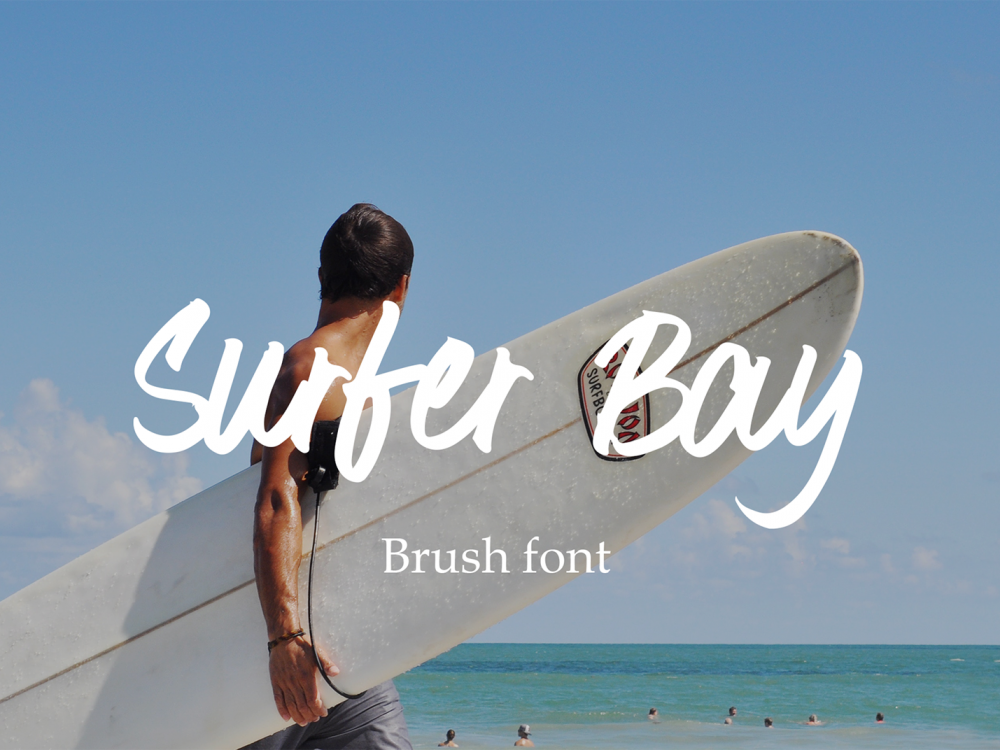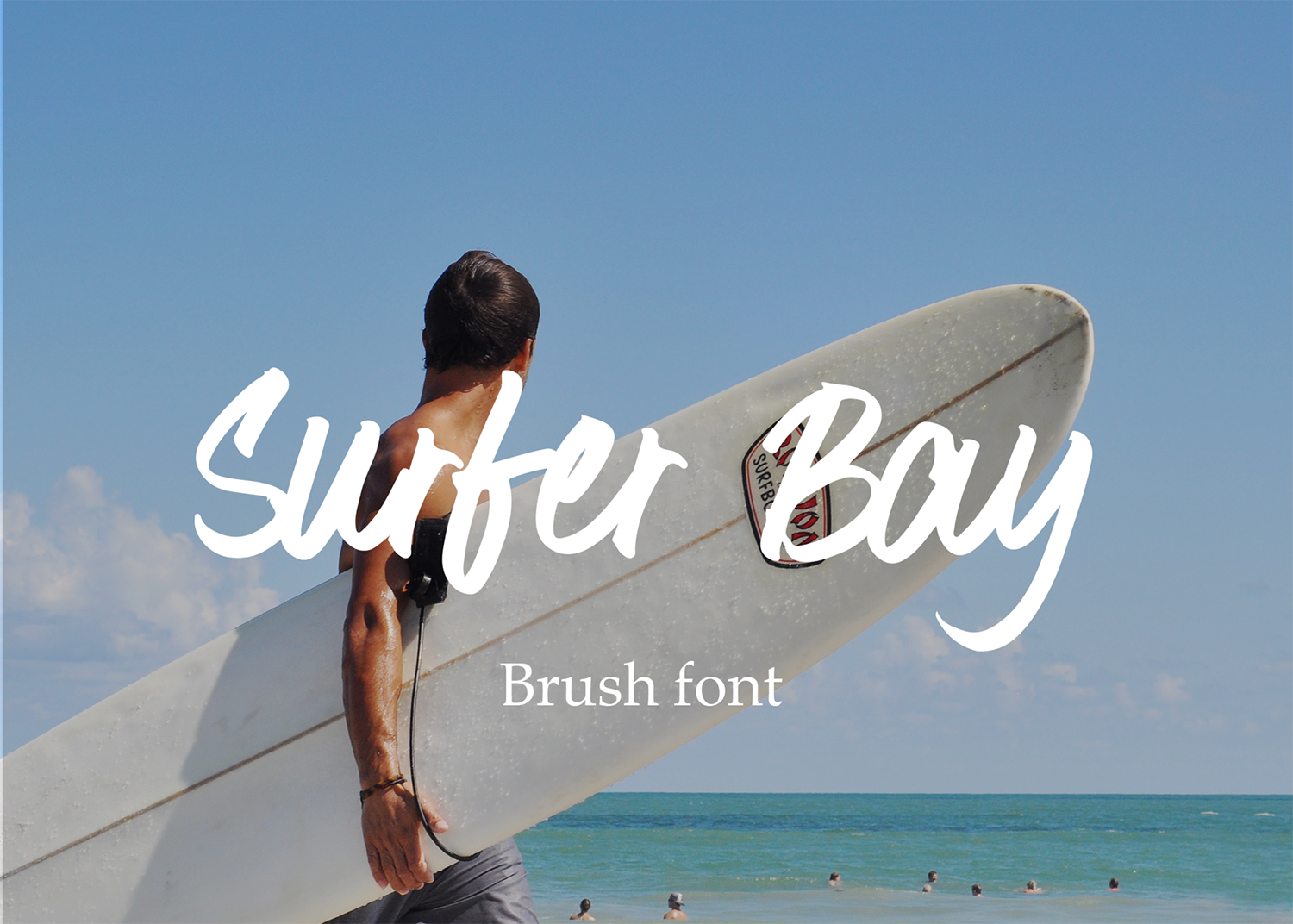
Surfer Bay Free Brush Font
Surfer Bay Free Brush Font is a beautiful and interesting font imitating writing with a brush. This font is perfect for creating various projects that require a handwritten font. These can be posters, cards, invitations, prints, and more. If you need additional characters added feel free to contact the author. For a commercial project please buy the full version.